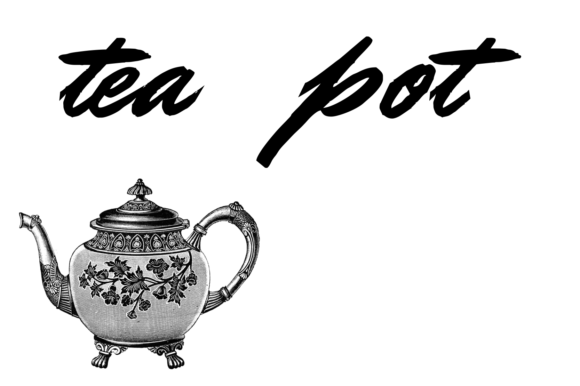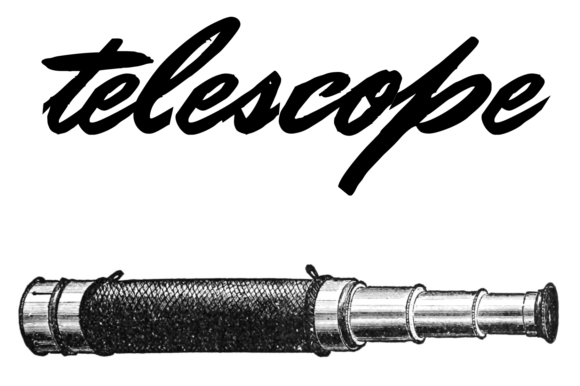
HomeScript FontsDoctor Russel Font Script Fonts Doctor Russel Font FacebookXPinterestWhatsApp Doctor Russel Font Poster 2 Doctor Russel Font Poster 3 About Doctor Russel Font The Doctor Russel is a rough naive handwritten script font. DOWNLOAD NOW People also explored Trully Signature Font Leopard Font Romeyline Font Moone Font Oh Juliya Font Policy Gothic Teacher to School Font Clutchy Font Agnoses Font 257 0 TagsDoctor Russel Font Previous articleCarolina Signature FontNext articleRyanthi Font LEAVE A REPLY Cancel reply Comment: Please enter your comment! Name:* Please enter your name here Email:* You have entered an incorrect email address! Please enter your email address here Website: Save my name, email, and website in this browser for the next time I comment. Personal Use Free Zephan Personal Use Free Read more about this font Knucklehead Personal Use Free Read more about this font Squariess Personal Use Free Read more about this font BD Beans Personal Use Free Read more about this font BLOG Best Fonts for T-Shirt Design – Top 2025 Picks In 2025, t-shirt design has become more than just fashion—it's a form of self-expression. Whether you're... How to Install and Use Fonts on Windows, macOS, and Web Projects Using Fonts in Digital Marketing: Tips to Strengthen Your Brand Identity Where to Buy American Fonts Online in 2024